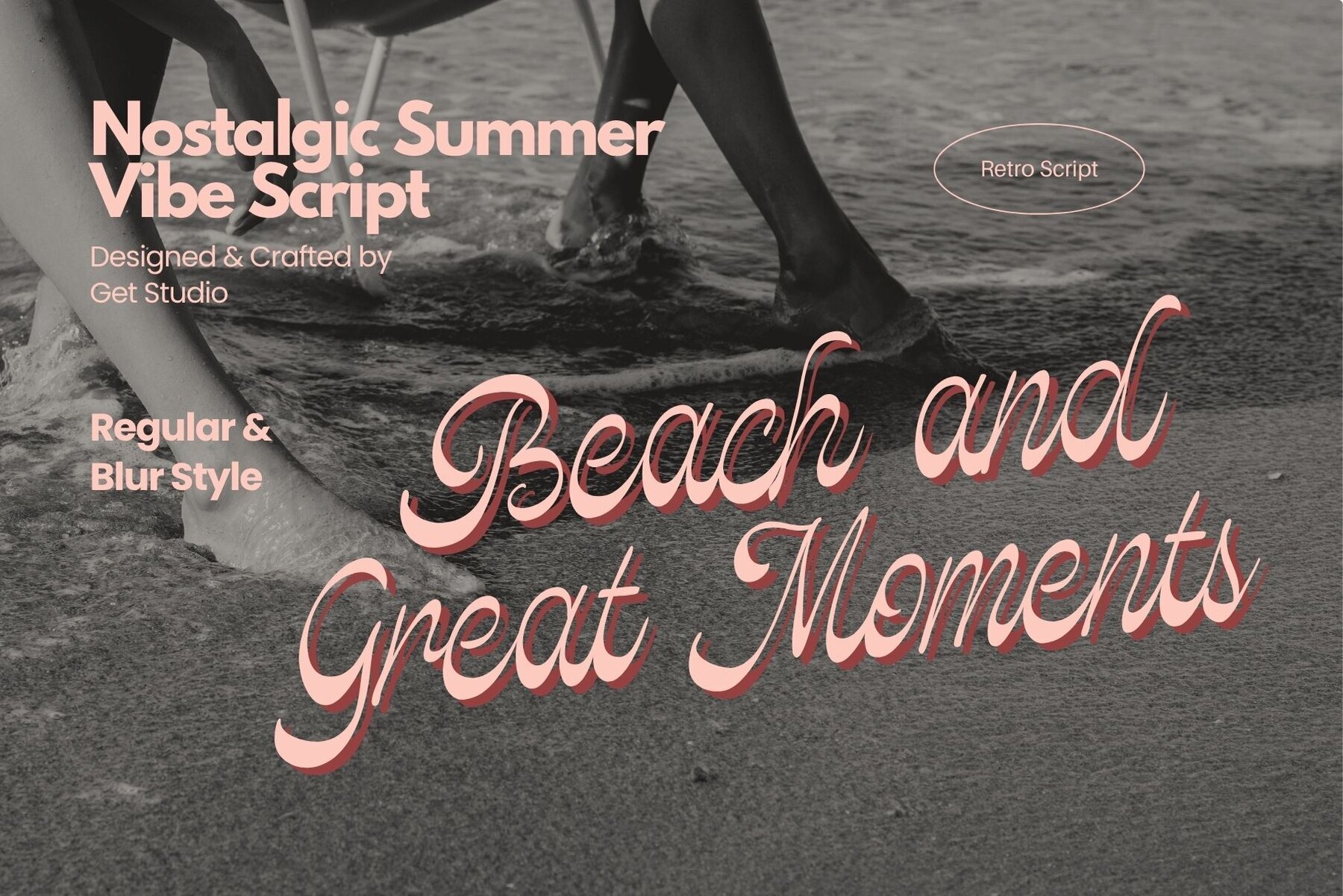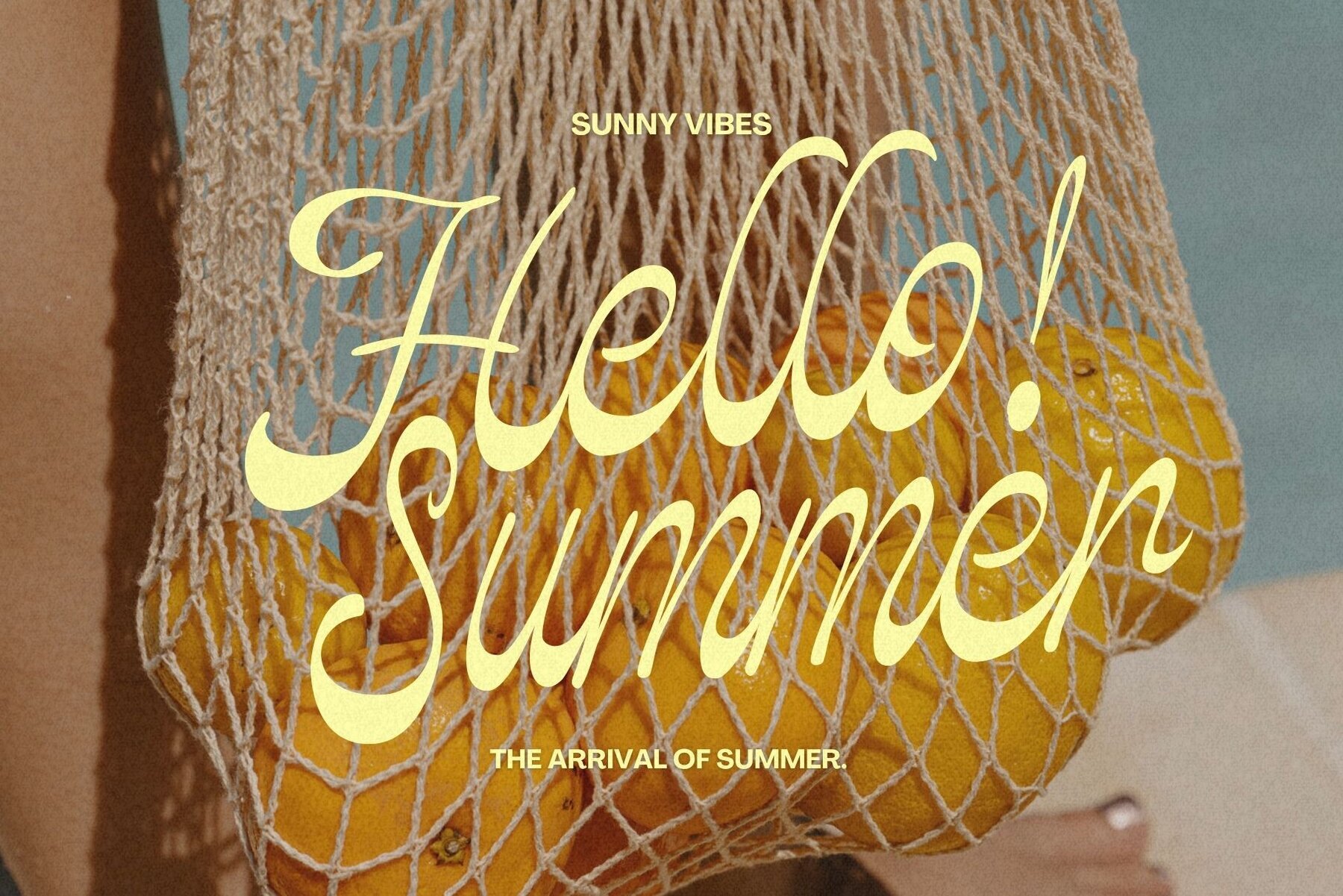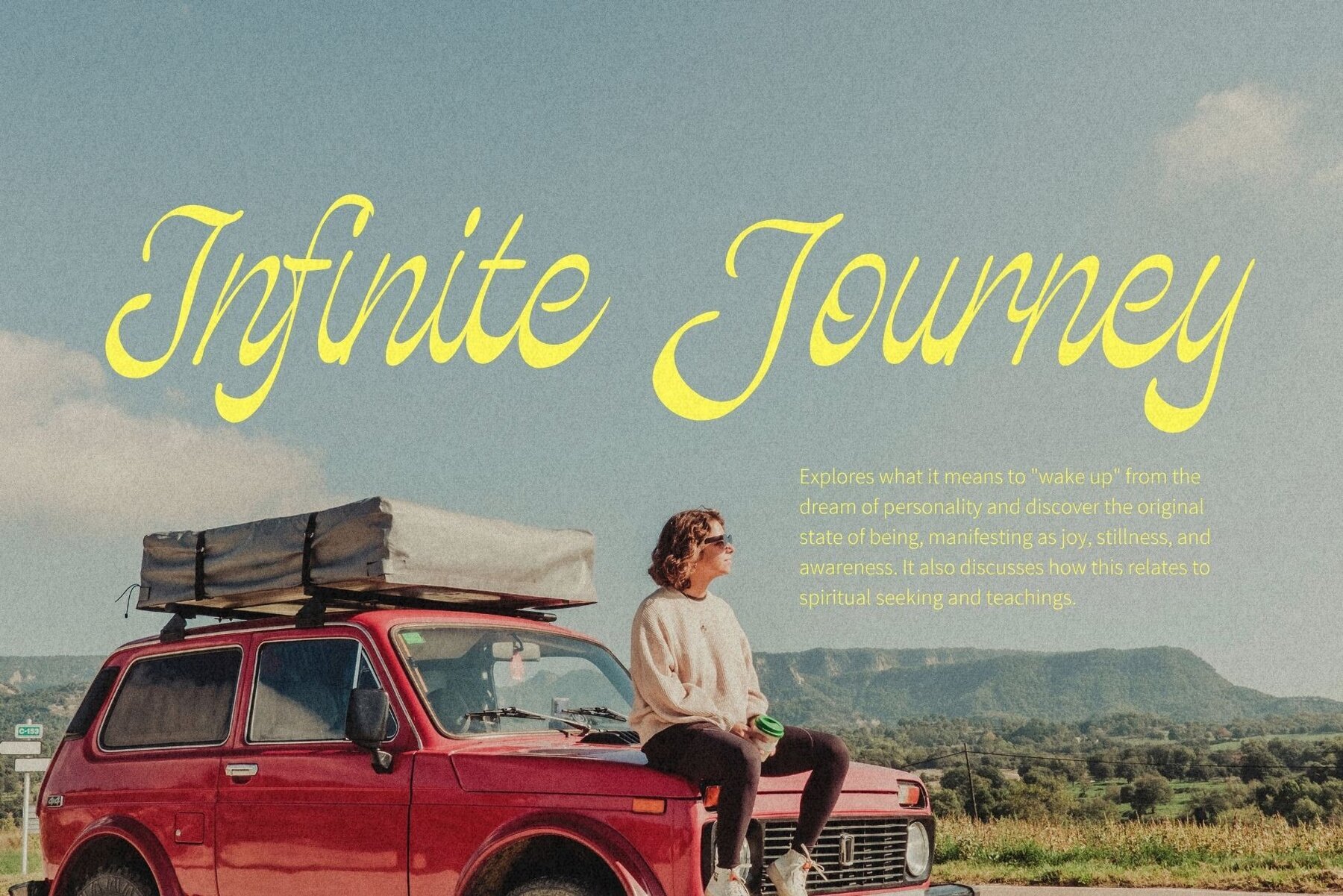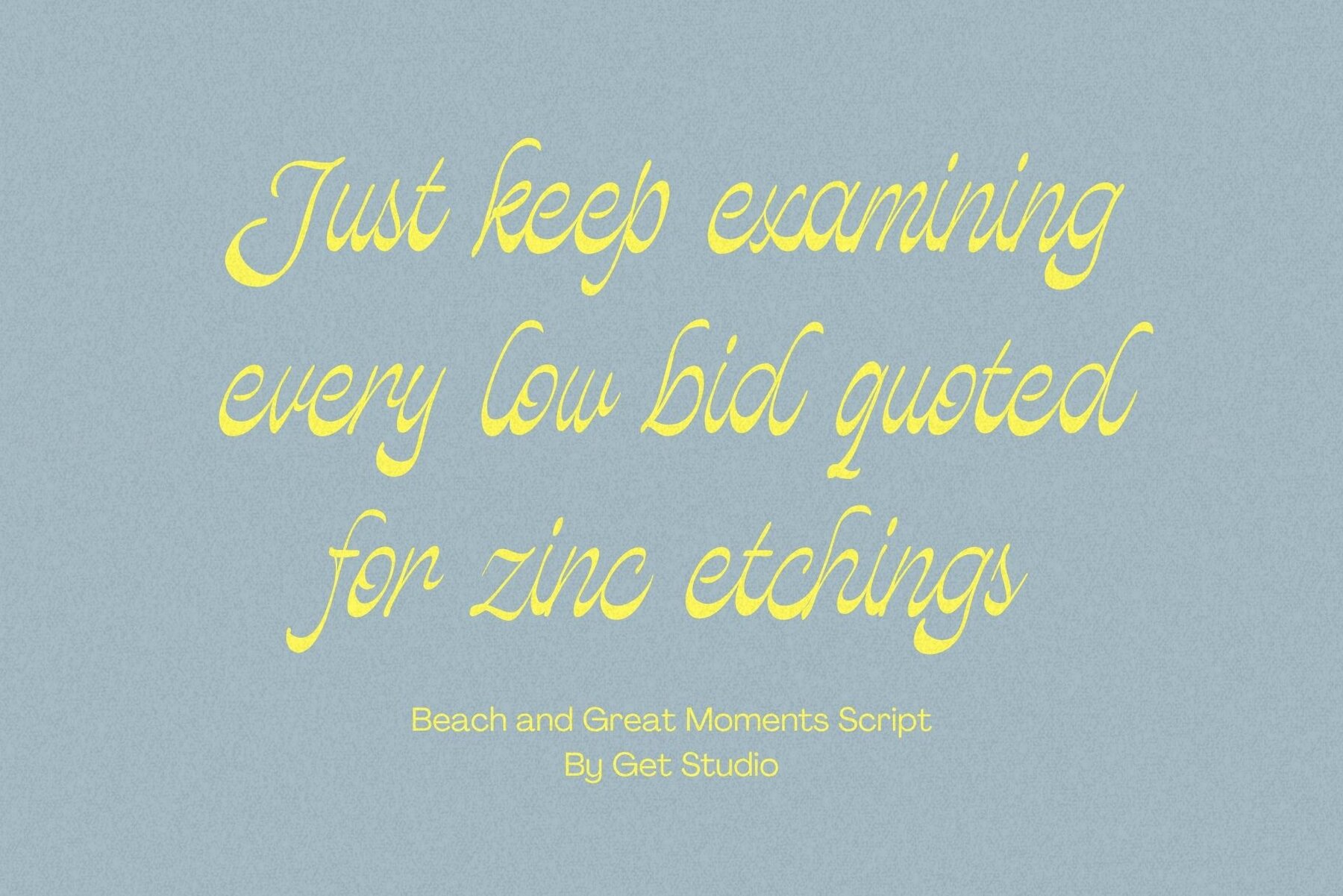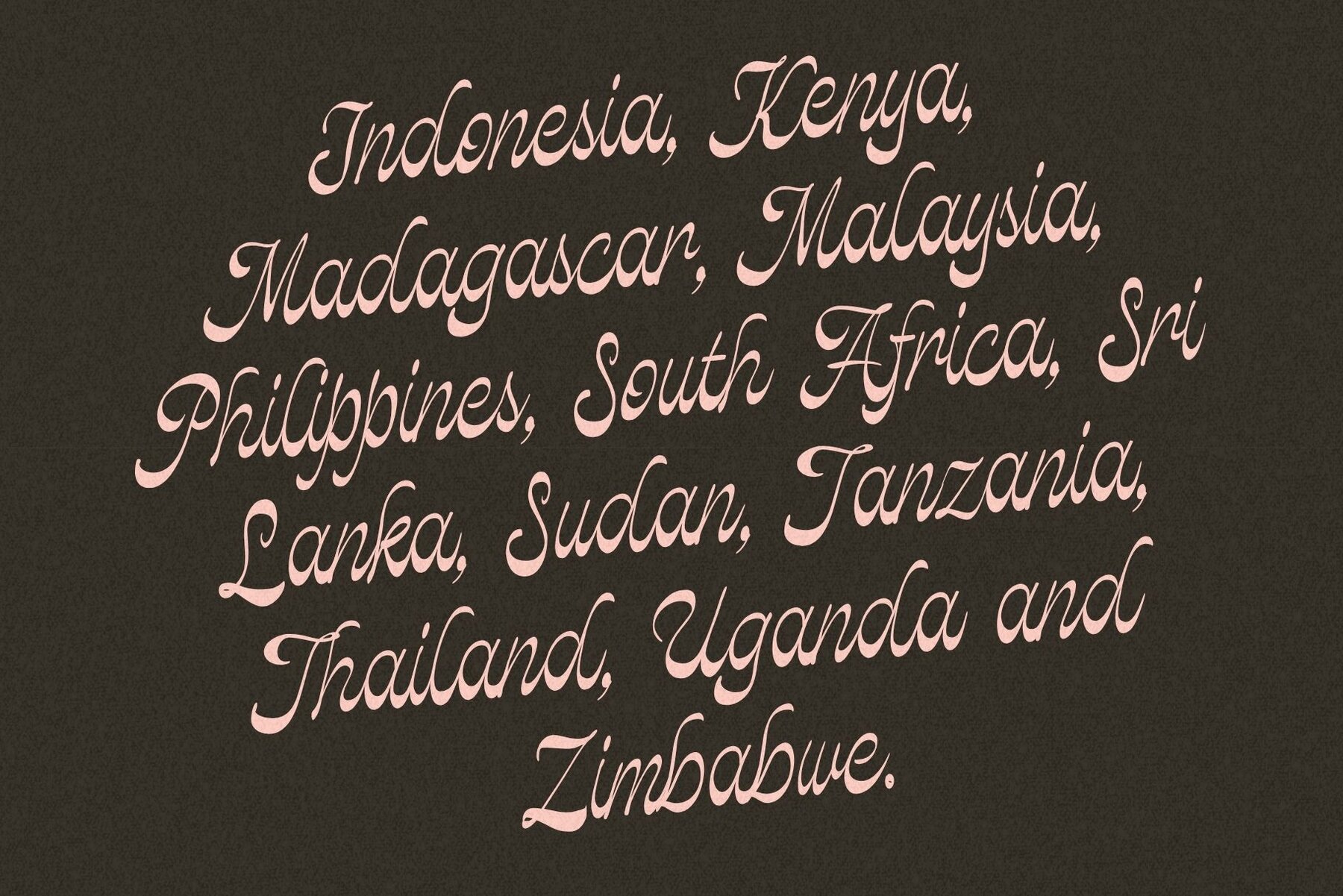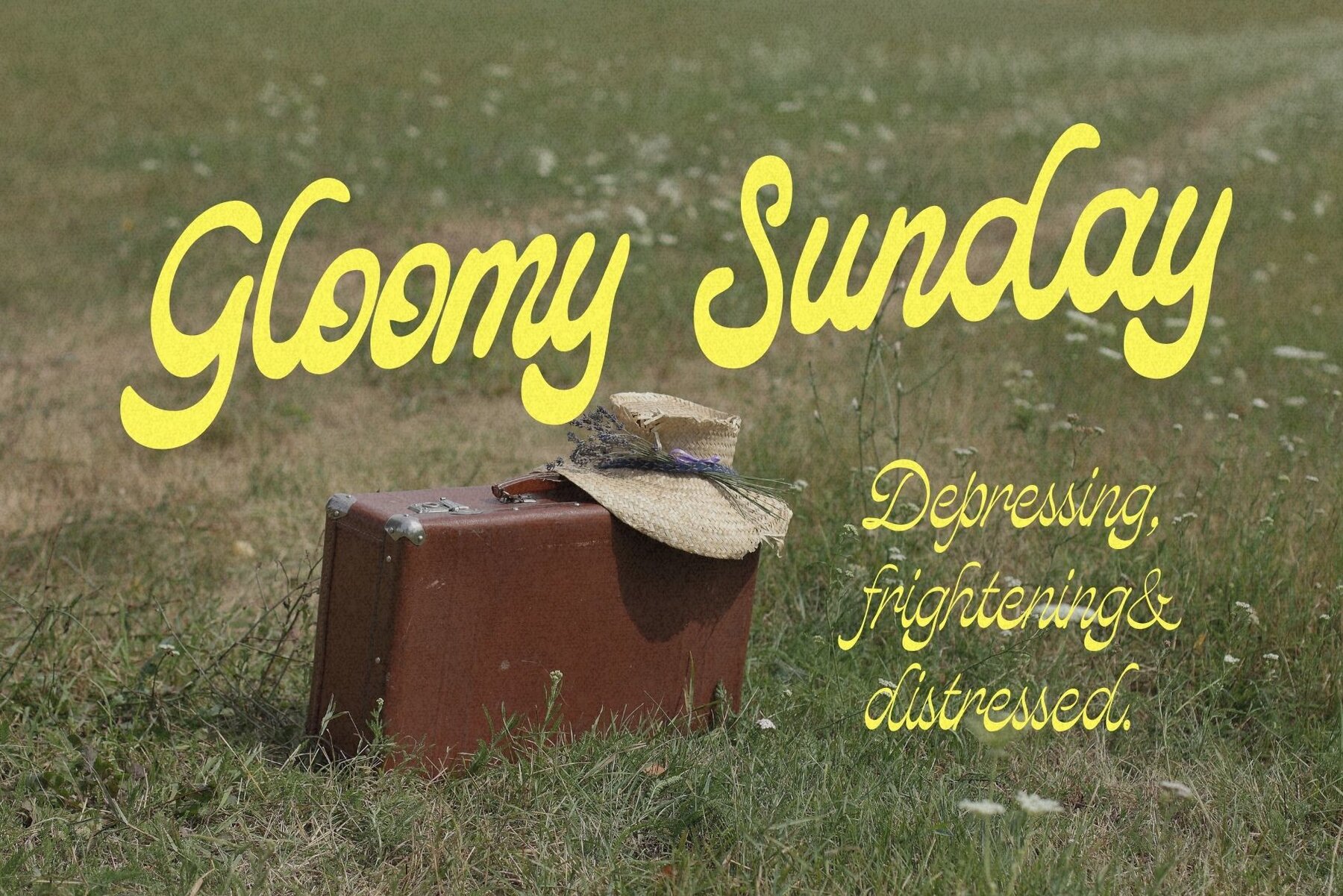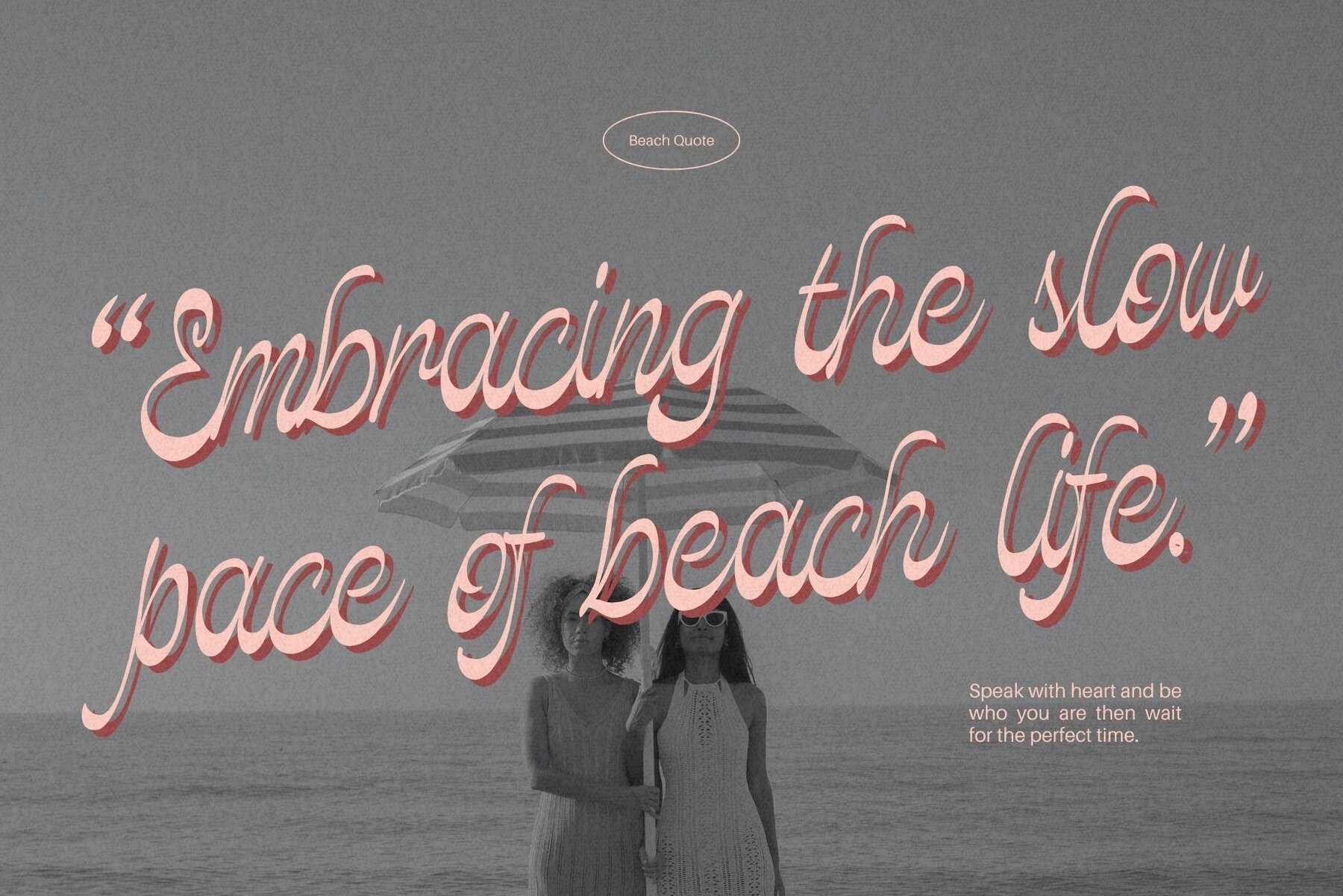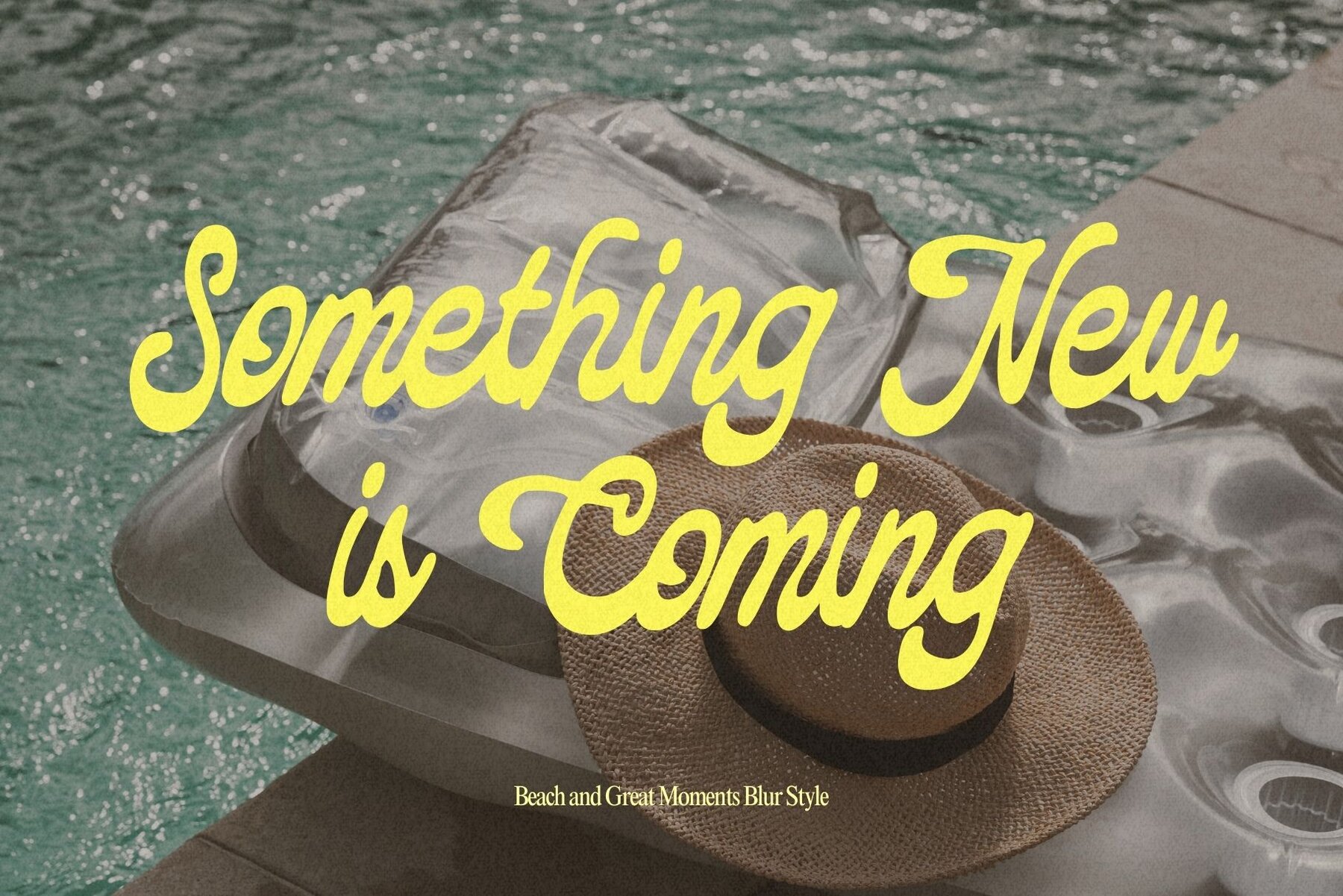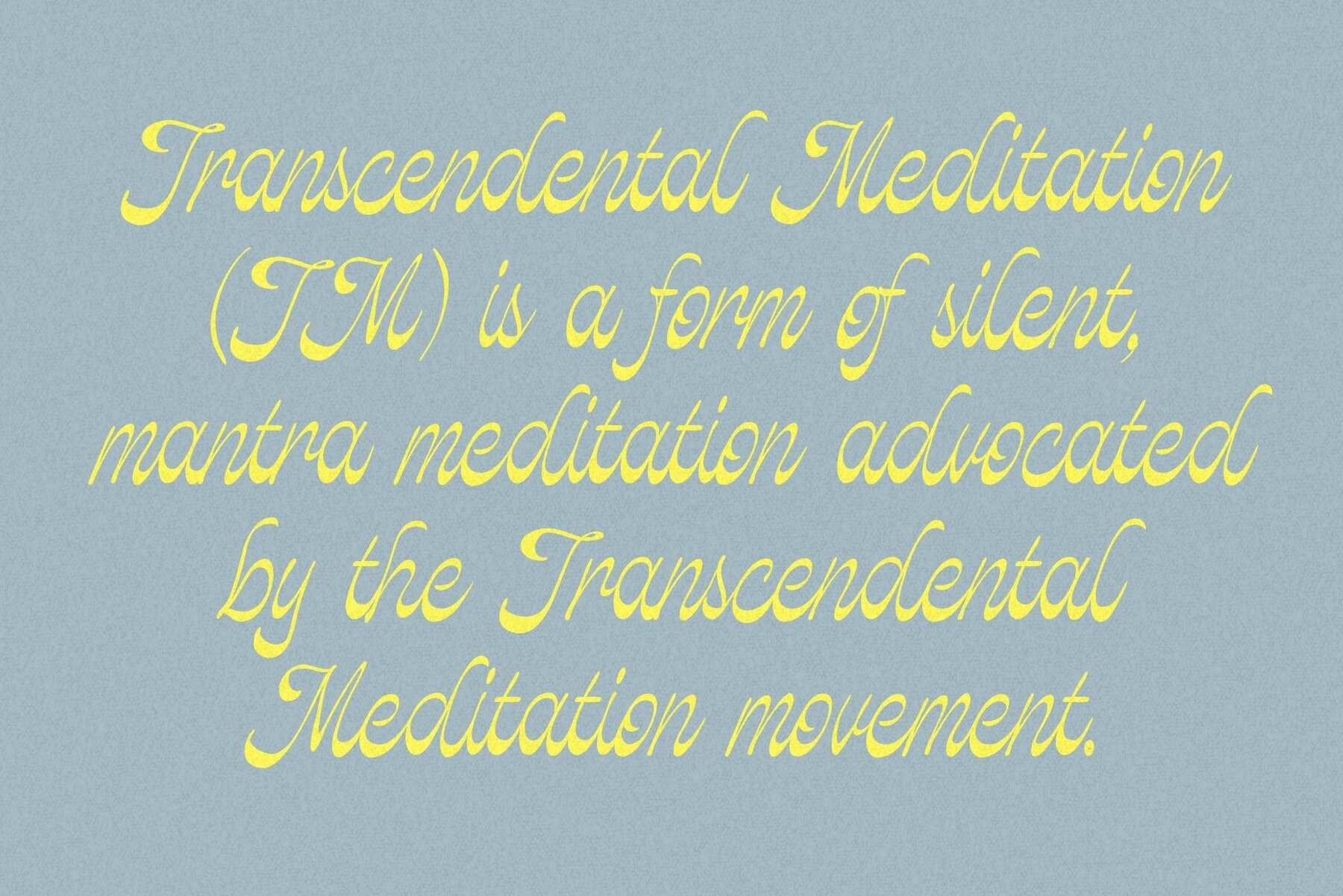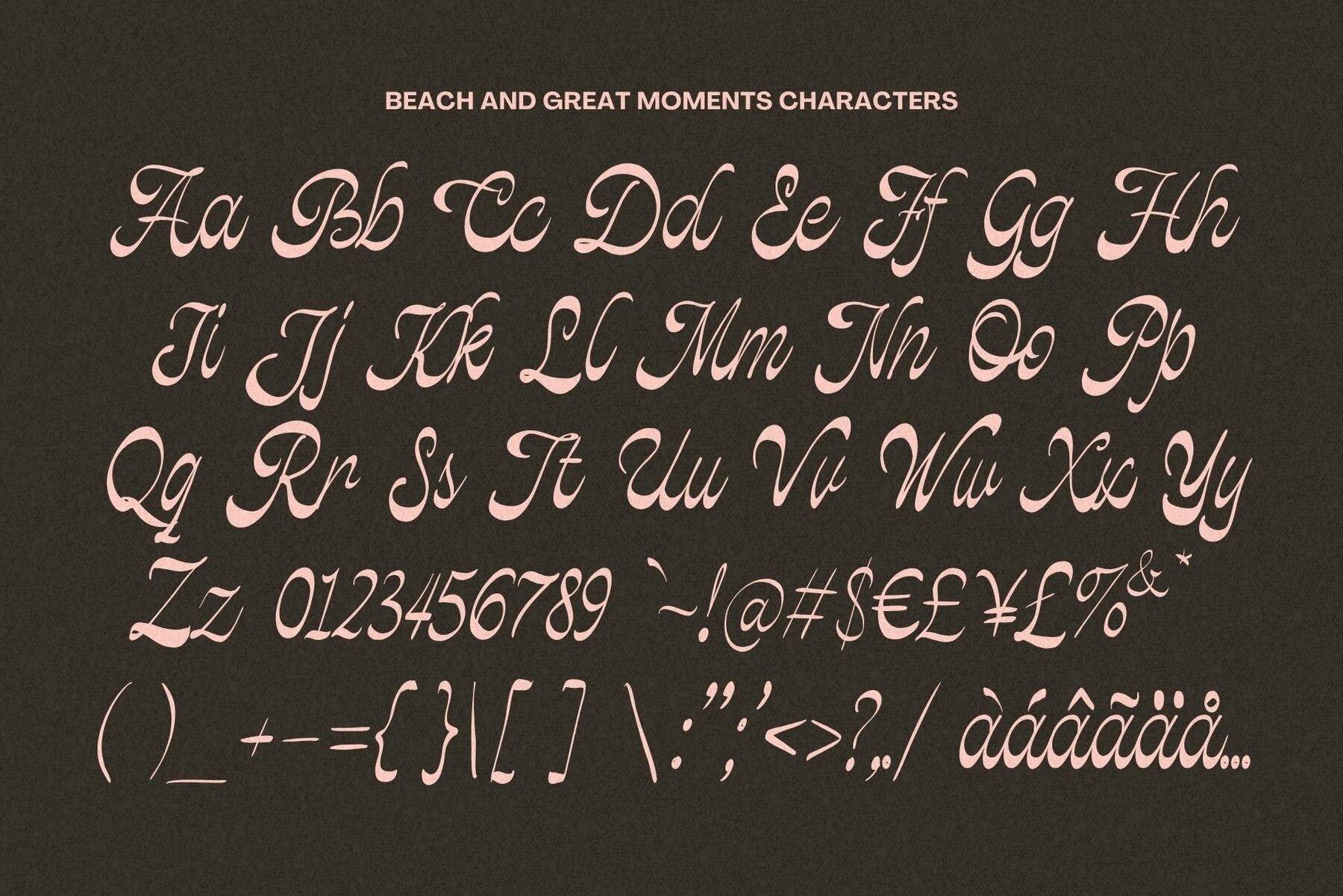
Beach and Great Moments Font
Beach and Great Moments captures the essence of summer through its nostalgic script style. With its smooth curves and elegant handwritten flow, this typeface evokes the relaxed, joyful spirit of beach days and unforgettable memories. Ideal for branding, travel-inspired projects, social media graphics, packaging, and editorial layouts, it offers a vintage charm with a modern touch.Beach and Great Moments: Nostalgic Script Font